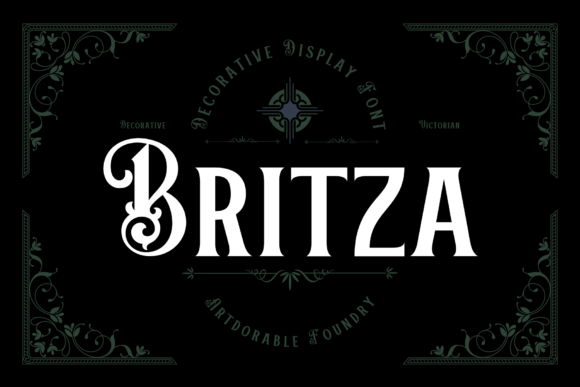
Introducing Britza Font: A Victorian-Inspired Display Font for Elegant Compositions
In the world of typography, fonts play a crucial role in conveying the tone and personality of a brand or design. With numerous fonts available, it can be challenging to find one that stands out and adds a touch of elegance to your compositions. This is where Britza Font comes in – a cool, unique, and Victorian-inspired display font designed to help you create gorgeous and classy compositions.
What is Britza Font?
Britza Font is a carefully crafted display font that draws inspiration from the Victorian era. Its beautiful rhythm and intricate details make it an ideal choice for creating stunning branding projects, invitations, web graphics, cards, and more. With Britza Font, you can add a touch of sophistication and elegance to your designs, setting them apart from the rest.
Key Features of Britza Font
- Victorian-Inspired Design: Britza Font boasts a unique and intricate design that pays homage to the Victorian era. Its elegant and refined aesthetic makes it perfect for creating classy compositions.
- Beautiful Rhythm: The font features a beautiful rhythm that adds a touch of sophistication to your designs. Its flowing curves and lines create a sense of harmony, making it ideal for creating visually appealing compositions.
- Display Font: Britza Font is a display font, making it perfect for headlines, titles, and other prominent text elements. Its large size and intricate details ensure that it stands out and grabs attention.
- Versatile: Britza Font is a versatile font that can be used for a wide range of design projects, including branding, invitations, web graphics, cards, and more.
Ideas for Using Britza Font
With its elegant and refined aesthetic, Britza Font is suitable for a variety of design projects. Here are some ideas to get you started:
- Branding Projects: Use Britza Font to create stunning logos, business cards, and letterheads that reflect your brand’s personality and values.
- Invitations: Add a touch of elegance to your invitations with Britza Font. Its Victorian-inspired design makes it perfect for formal events, weddings, and parties.
- Web Graphics: Use Britza Font to create eye-catching web graphics, such as headers, banners, and social media posts.
- Cards: Create beautiful greeting cards, postcards, and stationery with Britza Font.
Benefits of Using Britza Font
Using Britza Font in your design projects offers several benefits, including:
- Elegance and Sophistication: Britza Font adds a touch of elegance and sophistication to your designs, making them stand out from the rest.
- Uniqueness: Its Victorian-inspired design ensures that your compositions are unique and eye-catching.
- Versatility: Britza Font can be used for a wide range of design projects, making it a valuable addition to your font collection.
- Easy to Read: Despite its intricate details, Britza Font is easy to read, making it perfect for body text and headlines.
Tips and Tricks for Using Britza Font
To get the most out of Britza Font, here are some tips and tricks to keep in mind:
- Use it Sparingly: Due to its intricate details, it’s best to use Britza Font sparingly. Use it for headlines and titles, and pair it with a simpler font for body text.
- Experiment with Colors: Britza Font looks stunning in a variety of colors. Experiment with different colors to find the one that works best for your design.
- Pay Attention to Kerning: Pay attention to kerning to ensure that your text looks professional and polished.
In conclusion, Britza Font is a beautiful and unique Victorian-inspired display font that can add a touch of elegance and sophistication to your design projects. Its beautiful rhythm, intricate details, and versatility make it perfect for creating stunning branding projects, invitations, web graphics, cards, and more. With its ease of use and flexibility, Britza Font is an excellent addition to any font collection.